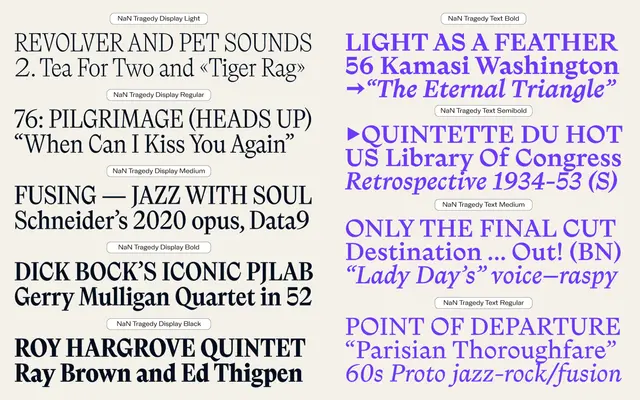
NaN Tragedy
NaN · Jean-Baptiste Morizot · 2019
A high-contrast serif by Jean-Baptiste Morizot that pairs a classical calligraphic skeleton with exaggerated geometrical detail, spanning Text, Display and Mono cuts.
Built around an exaggerated diagonal stress axis and unconventional letterforms set onto a classical skeleton, the family runs across three distinct subfamilies — Text, Display and Mono — developed between 2019 and 2023. The Display cut pushes contrast and drama further, while the Text cut applies optical corrections to keep the idiosyncratic forms functional at smaller sizes. Tragedy Mono is the most singular member, forcing the modulated diagonal stress into a monospaced grid to produce a texture rarely encountered in that format.
A high-contrast serif with a pronounced calligraphic stress axis and classical skeleton, sitting between transitional and contemporary serif traditions. The exaggerated contrast and unconventional details resist easy placement within historical categories.